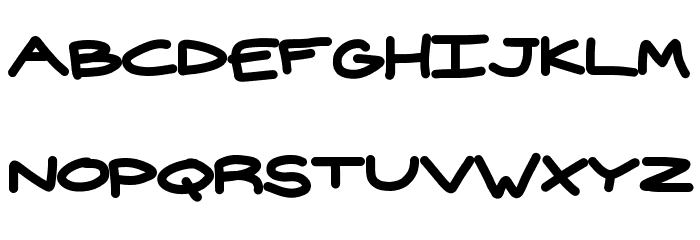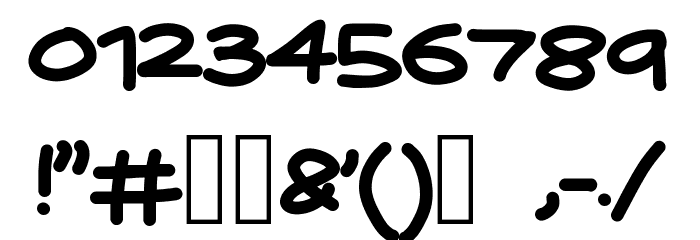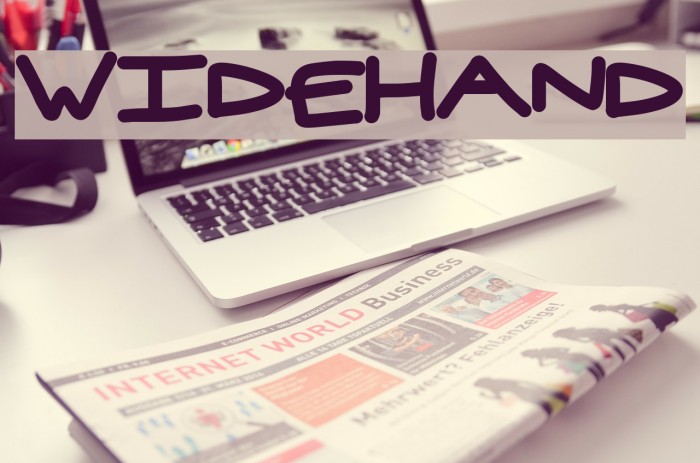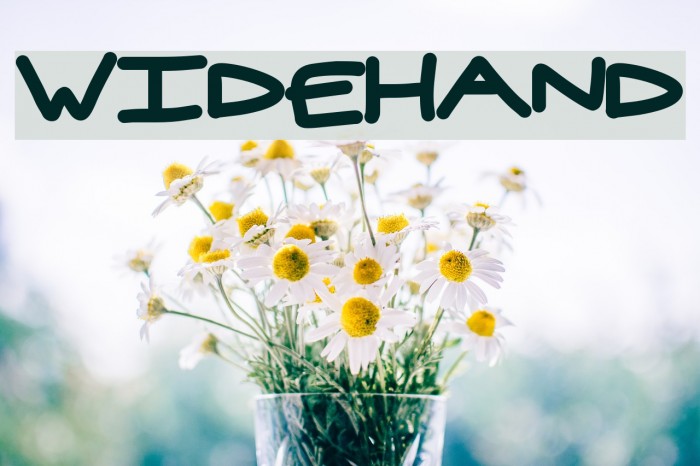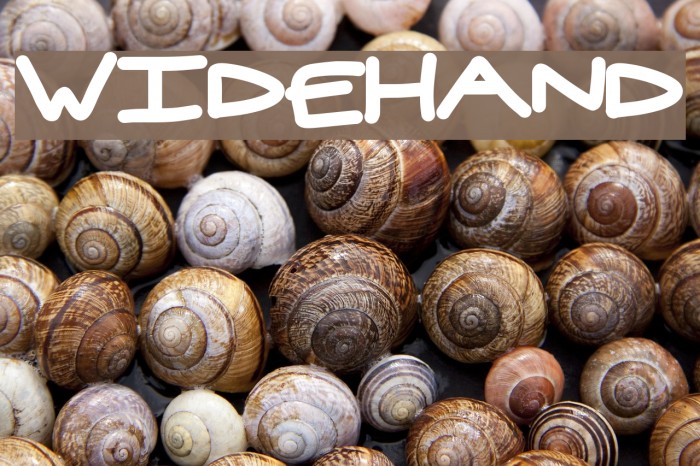
widehand Font
This font features a playful and casual handwritten style, characterized by its bold and rounded letterforms. The strokes are consistent in thickness, providing a uniform appearance across all characters. The letters have a slightly slanted orientation, adding to the informal and relaxed feel. The characters are well-spaced, ensuring readability while maintaining a cohesive look. This font includes a full set of uppercase and lowercase letters, numerals, and a variety of special characters, making it versatile for different design needs.
A bold, playful handwritten font with rounded, consistent strokes.
- Proposed Projects: Ideal for children's books, playful branding, casual invitations, and social media graphics.
- Overall Style: Playful
- Use Case: Headlines, Logos, Invitations